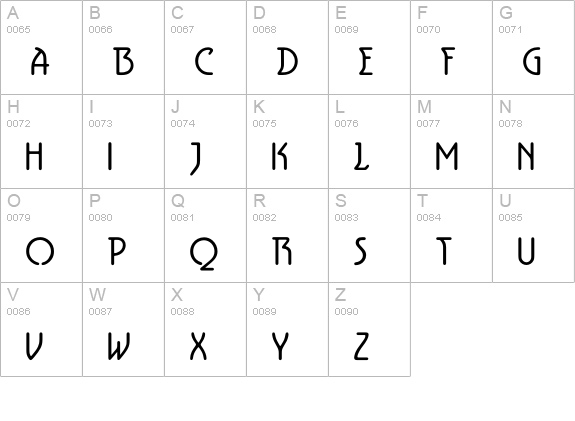
Aerolite Font Details
Aerolite font is a striking and versatile typeface that exudes a sense of modernity and sophistication. With its clean lines and elegant curves, this font is perfect for creating eye-catching designs that demand attention. Whether you're designing a logo, a website, or a promotional poster, Aerolite is sure to make a lasting impression. What sets Aerolite font apart is not only its stunning aesthetics but also the fact that it is available for free. Yes, you read that right - this exceptional font can be downloaded at no cost from FontsMarket.com. This means that you can bring your creative ideas to life without having to worry about breaking the bank. Aerolite font offers a wide range of weights and styles, allowing you to customize your designs to suit your specific needs. From bold headlines to elegant body text, this font has you covered. Its versatility makes it suitable for a variety of projects, whether you're designing for print or digital platforms. The legibility of Aerolite font is unparalleled, ensuring that your message will be conveyed clearly and effectively. Its carefully crafted letterforms make reading a breeze, ensuring that your audience will easily absorb your content. In addition to its aesthetic appeal and readability, Aerolite font is also highly functional. It is compatible with various software and design applications, ensuring a seamless integration into your workflow. This font is also available in multiple file formats, making it easy to use across different devices and platforms. So why wait? Embrace the beauty and functionality of Aerolite font today and elevate your designs to new heights. Download this exceptional font for free at FontsMarket.com and unlock a world of creative possibilities.